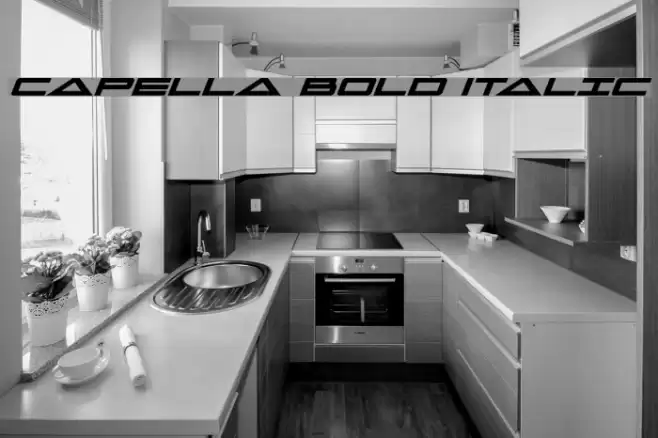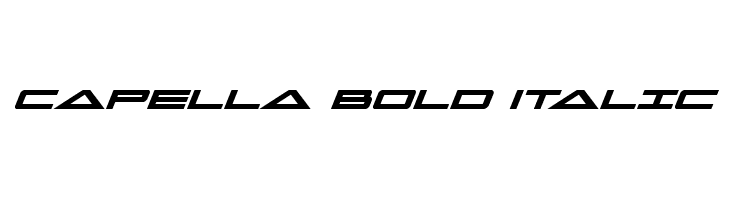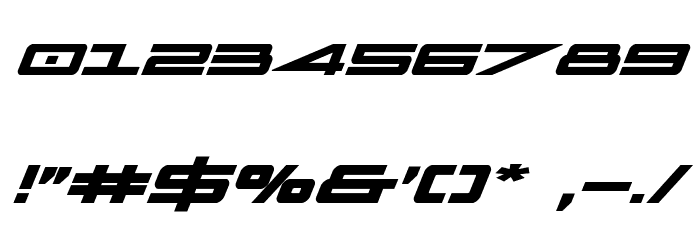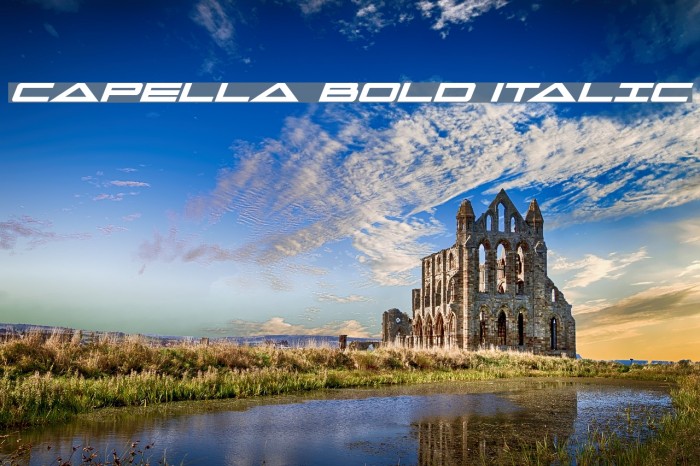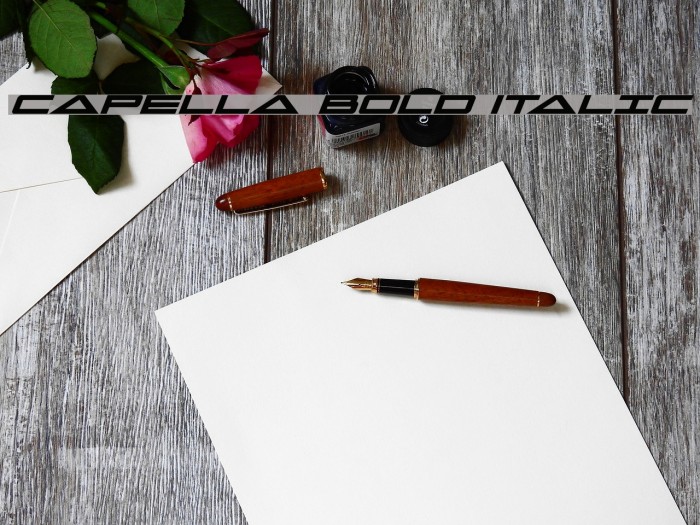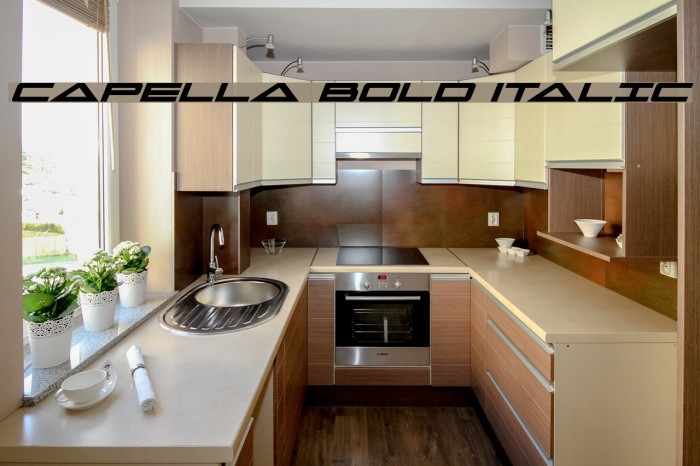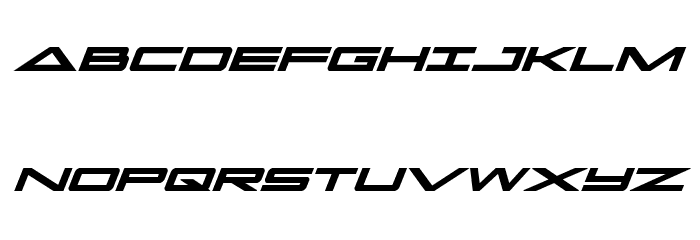
Capella Bold Italic Font
Capella Bold Italic Description
This font features a bold and italicized style with a modern and futuristic aesthetic. The characters are sharply angled, giving a sense of speed and dynamism. The uppercase letters are particularly striking, with a geometric design that emphasizes straight lines and sharp corners. The lowercase letters maintain this angular theme, creating a cohesive look across the alphabet. Numbers and special characters are designed with the same bold and italicized style, ensuring consistency throughout. The font's overall appearance is sleek and contemporary, making it suitable for projects that require a modern and edgy feel.
A bold, italicized font with a modern, angular design from Uncategorized fonts.
- Proposed Projects: Ideal for technology branding, sports team logos, futuristic posters, and dynamic website headers.
- Overall Style: Modern, Futuristic